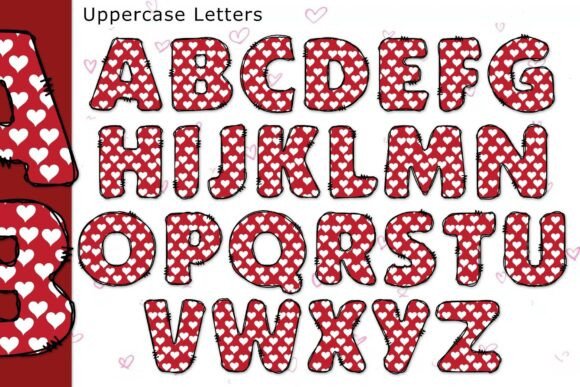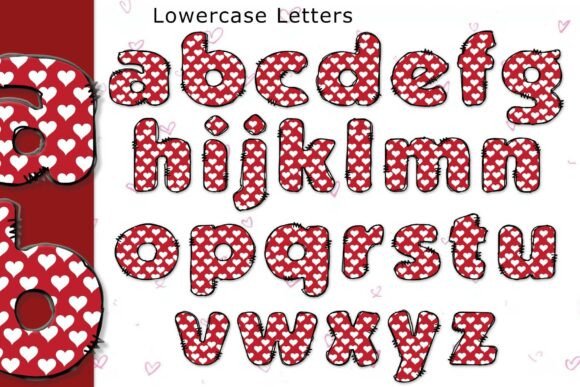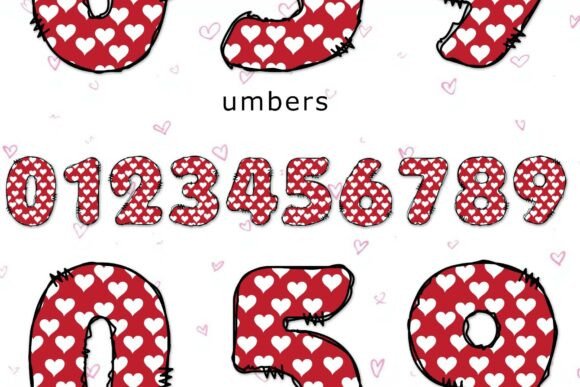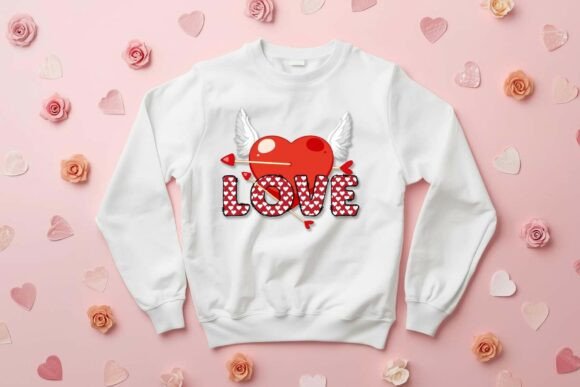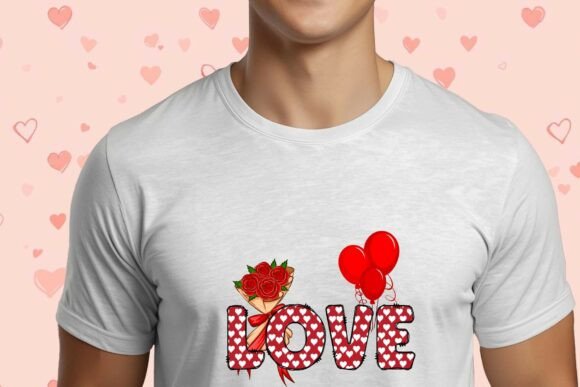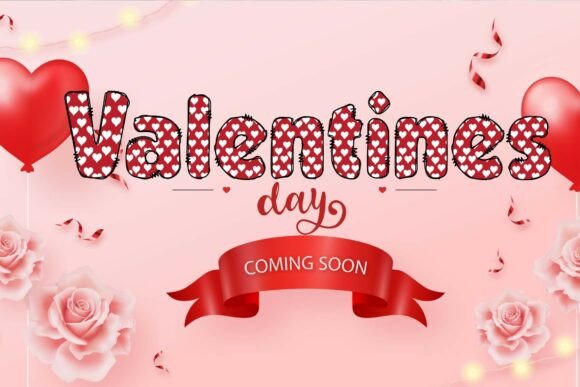
Celebrate the Season of Love with Classic Red Hearts Font
Are you looking for a font that embodies the spirit of Valentine’s Day and love? Look no further than the Classic Red Hearts font, a vibrant and charming color font collection designed to make your heartfelt messages pop. This delightful typeface features thick, playful letterforms filled with a repeating pattern of white hearts against a bold red background, making it the ultimate cute Valentine doodle font.
The Perfect Font for Valentine’s Day Designs
The Classic Red Hearts font is perfect for holiday greeting cards, romantic social media graphics, and “I love you” notes. Its intricate, love-filled details add instant joy to any canvas, making it an ideal choice for designers and crafters who want to create eye-catching and heartwarming designs. Whether you’re designing for Valentine’s Day, love quotes, romantic posters, greeting cards, T-shirts, stickers, or sublimation projects, this font is sure to add a warm, sweet, and eye-catching look to your creations.
How to Use Classic Red Hearts Font
Because the Classic Red Hearts font is a specialized color font, it works best as a primary headline, paired with a simple monoline sans-serif to keep the focus on its intricate details. This allows the font’s love-filled design to take center stage, creating a beautiful and romantic visual effect. Designers and crafters can use this font to add a strong love-themed style to their designs, making it perfect for a variety of projects.
Design Possibilities with Classic Red Hearts Font
The Classic Red Hearts font offers endless design possibilities for crafters and designers. Here are a few ideas to get you started:
- Valentine’s Day greeting cards: Create beautiful and romantic greeting cards that will make your loved ones feel special.
- Romantic social media graphics: Add a touch of love to your social media posts with eye-catching graphics featuring the Classic Red Hearts font.
- Love quotes: Design stunning love quotes that will make your audience swoon.
- T-shirts and stickers: Create adorable T-shirts and stickers that feature the Classic Red Hearts font.
- Sublimation projects: Use the font to create beautiful sublimation projects, such as mugs, phone cases, and more.
Why Choose Classic Red Hearts Font?
So, why choose the Classic Red Hearts font for your designs? Here are a few reasons:
- Unique and eye-catching design: The font’s intricate, love-filled details make it a standout choice for designers and crafters.
- Perfect for Valentine’s Day and love-themed designs: The font’s romantic and playful design makes it ideal for Valentine’s Day and love-themed projects.
- Easy to use: The font is easy to use and works seamlessly with design software.
- Versatile: The font can be used for a variety of projects, from greeting cards to T-shirts and more.
Tips for Using Classic Red Hearts Font
Here are a few tips for using the Classic Red Hearts font:
- Pair with a simple font: Pair the Classic Red Hearts font with a simple monoline sans-serif to keep the focus on its intricate details.
- Use as a headline: Use the font as a headline to add a touch of love and romance to your designs.
- Experiment with colors: While the font’s bold red background is iconic, feel free to experiment with different colors to create unique designs.
The Classic Red Hearts font is a must-have for designers and crafters who want to add a touch of love and romance to their designs. With its unique and eye-catching design, versatility, and ease of use, this font is perfect for Valentine’s Day and love-themed projects. So why wait? Celebrate the season of love with the Classic Red Hearts font and make your heartfelt messages pop!